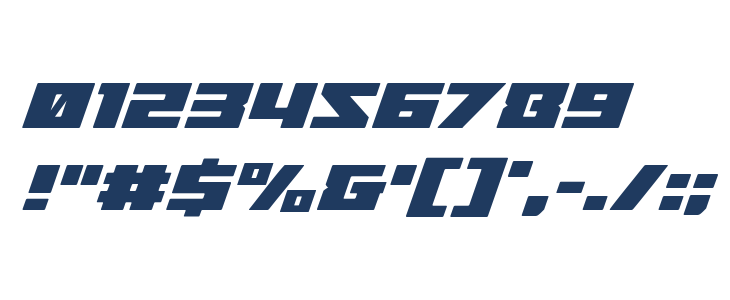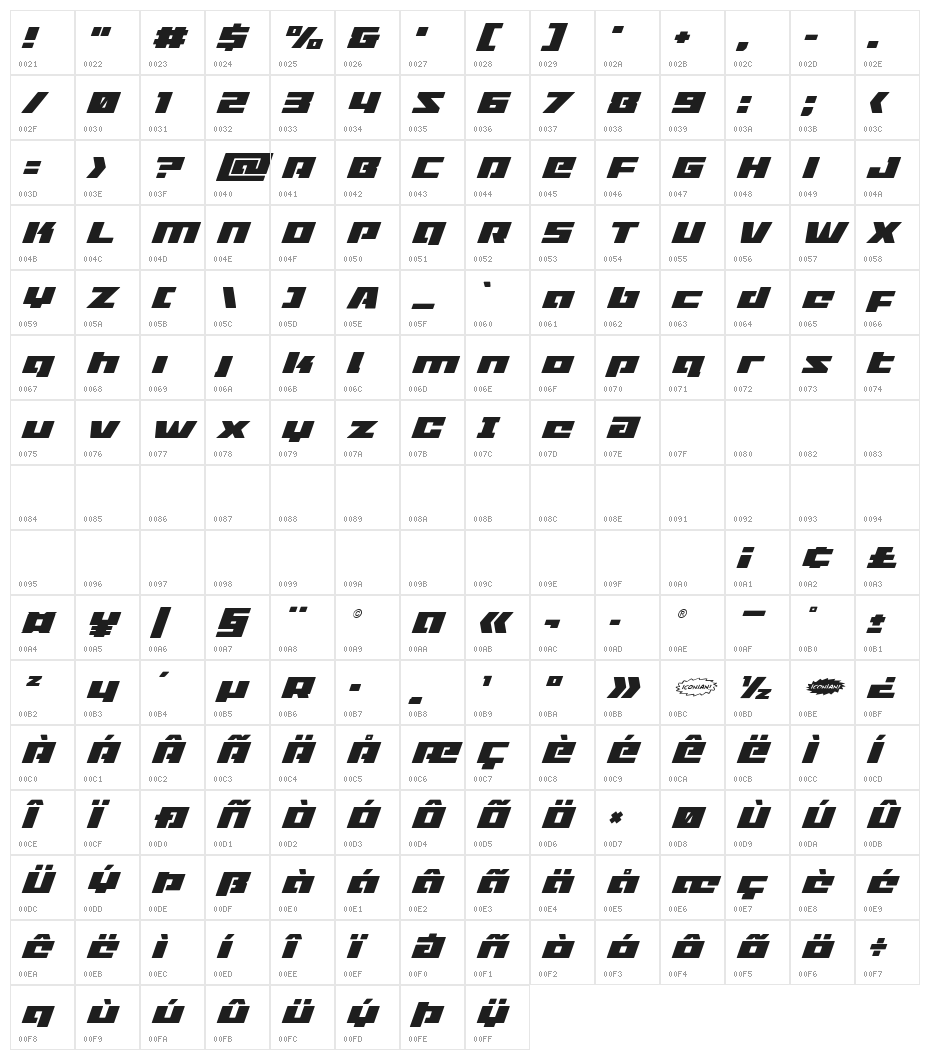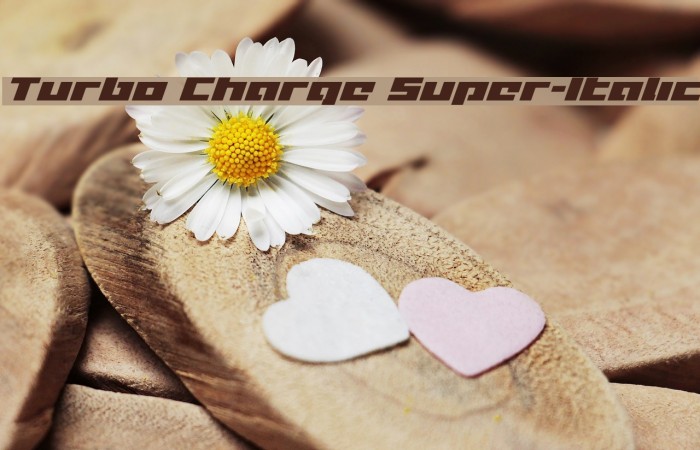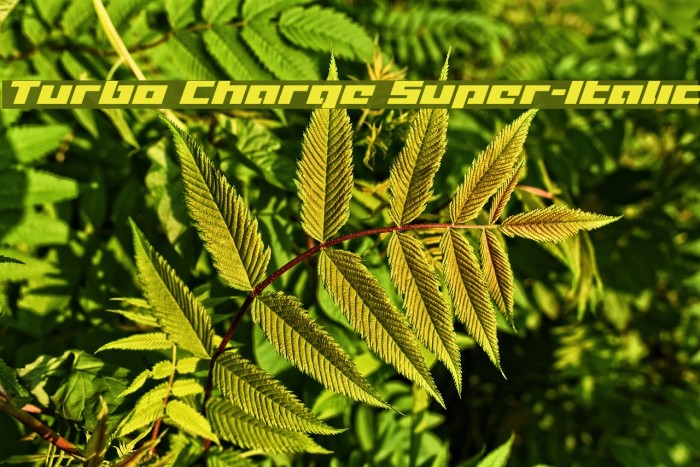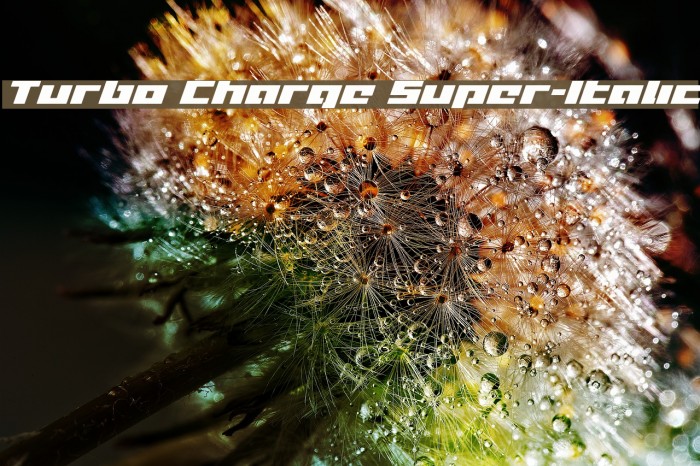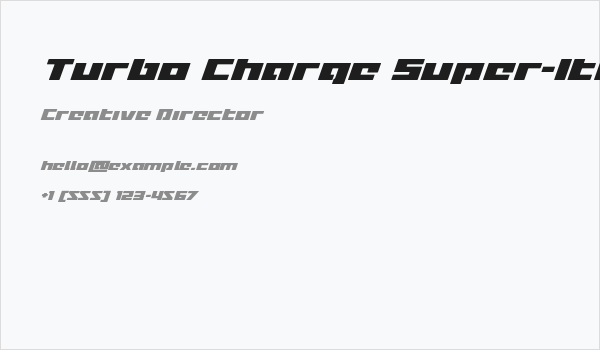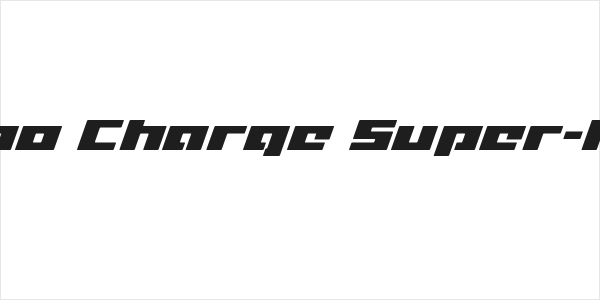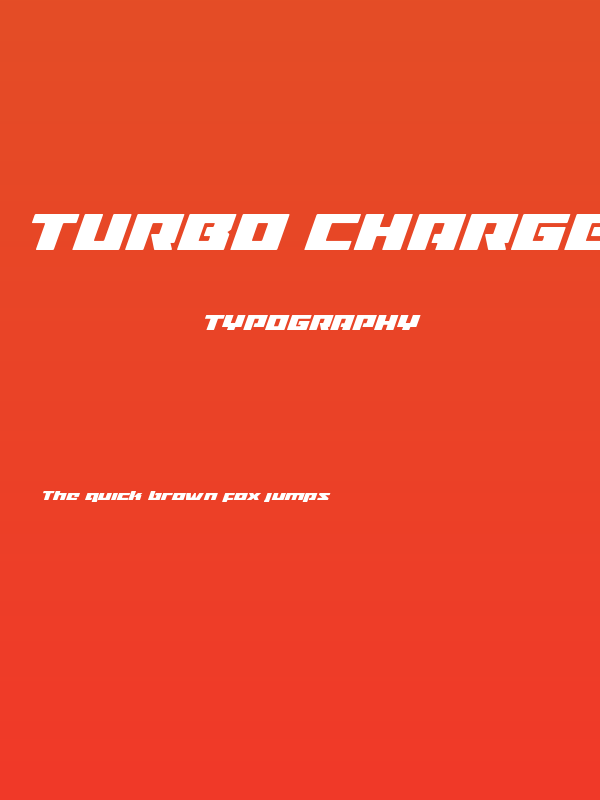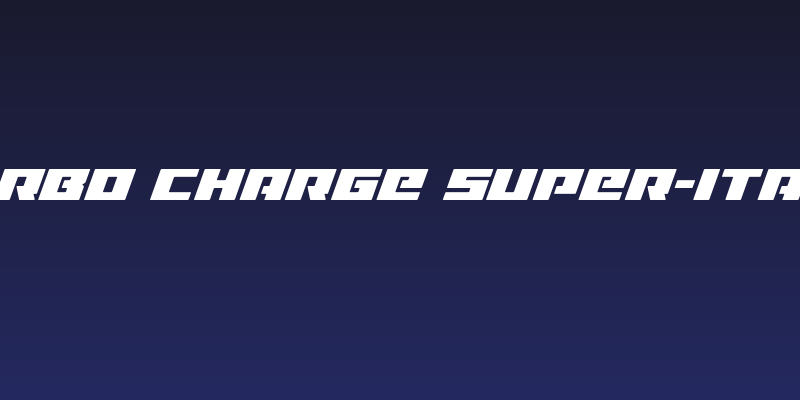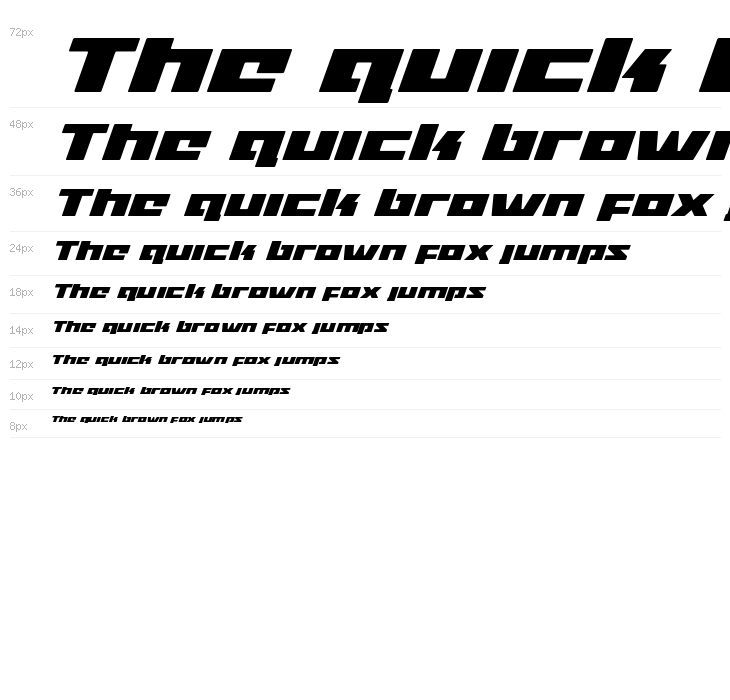
Turbo Charge Super-Italic Font
Turbo Charge Super-Italic Description
This dynamic and bold font exudes a sense of speed and power, characterized by its sharp, angular lines and italicized slant. The uppercase and lowercase letters maintain a consistent geometric style, with each character featuring a distinct forward-leaning posture that suggests movement. The numerals and special characters follow the same design principles, ensuring uniformity across all glyphs. The font's thick strokes and minimal contrast make it highly legible, even at smaller sizes, while its unique style ensures it stands out in any design context.